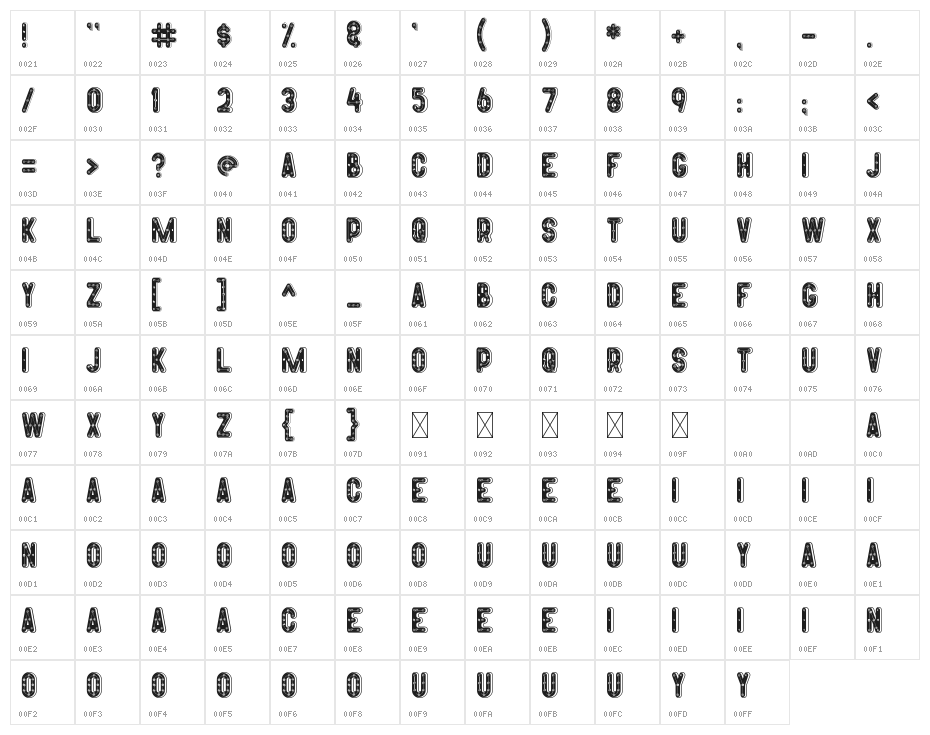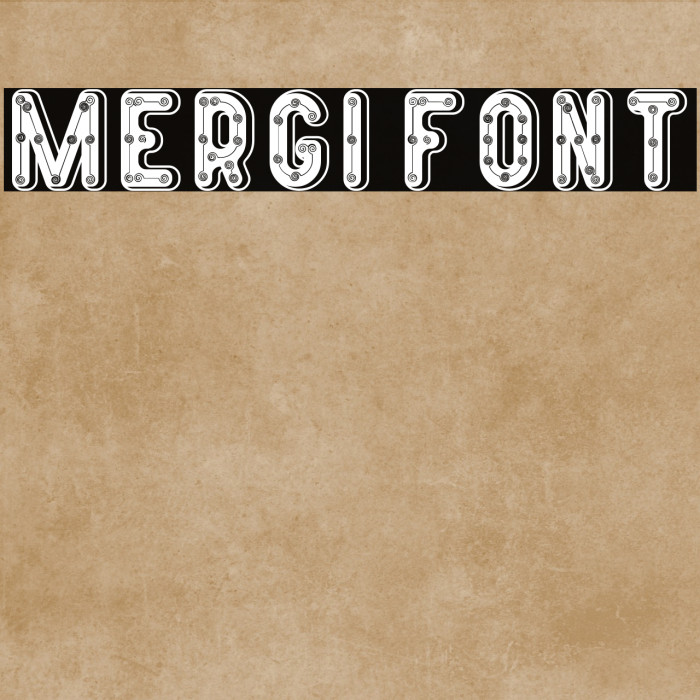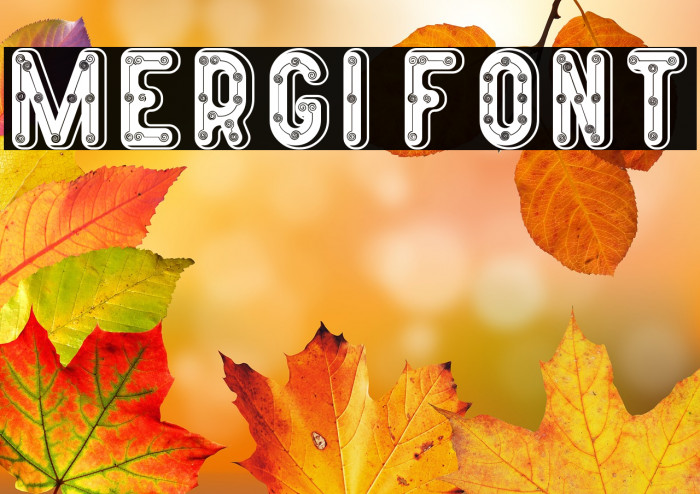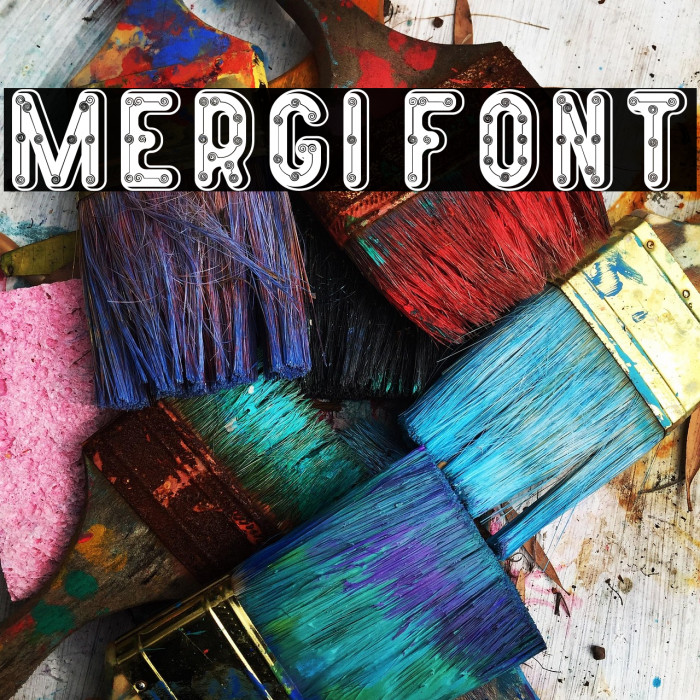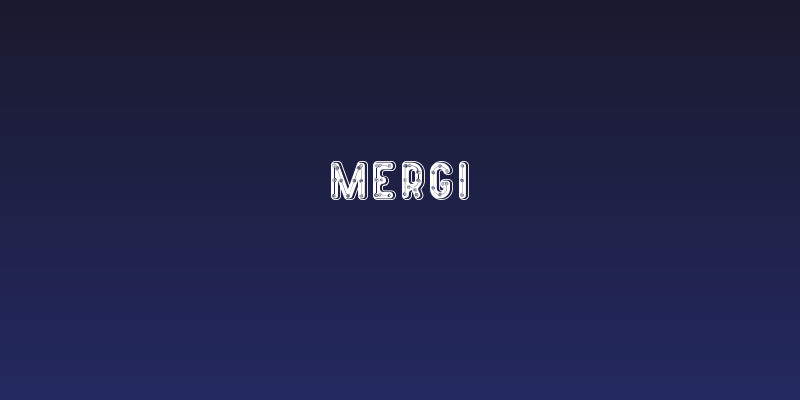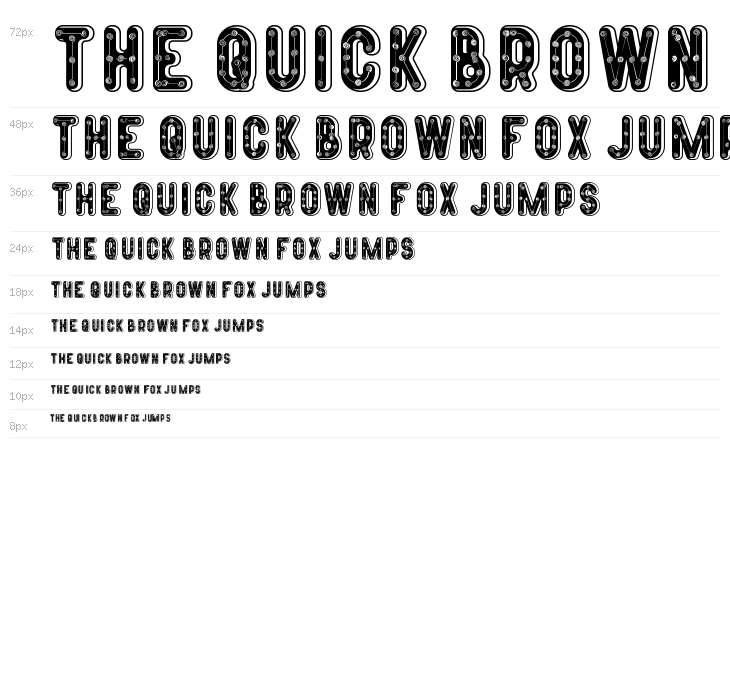
MERGI Font
MERGI Description
This font features a bold and playful design with a unique, decorative style. Each character is outlined with a thick black border and filled with a pattern of dots and lines, giving it a mechanical or industrial feel. The uppercase and lowercase letters maintain a consistent style, with rounded edges and uniform thickness. The numbers and special characters follow the same design principles, ensuring a cohesive look across all elements. This font's distinctive appearance makes it stand out, ideal for projects that require a touch of creativity and flair.
| Proposed Projects | Ideal for posters, branding, product packaging, and creative advertising campaigns. |